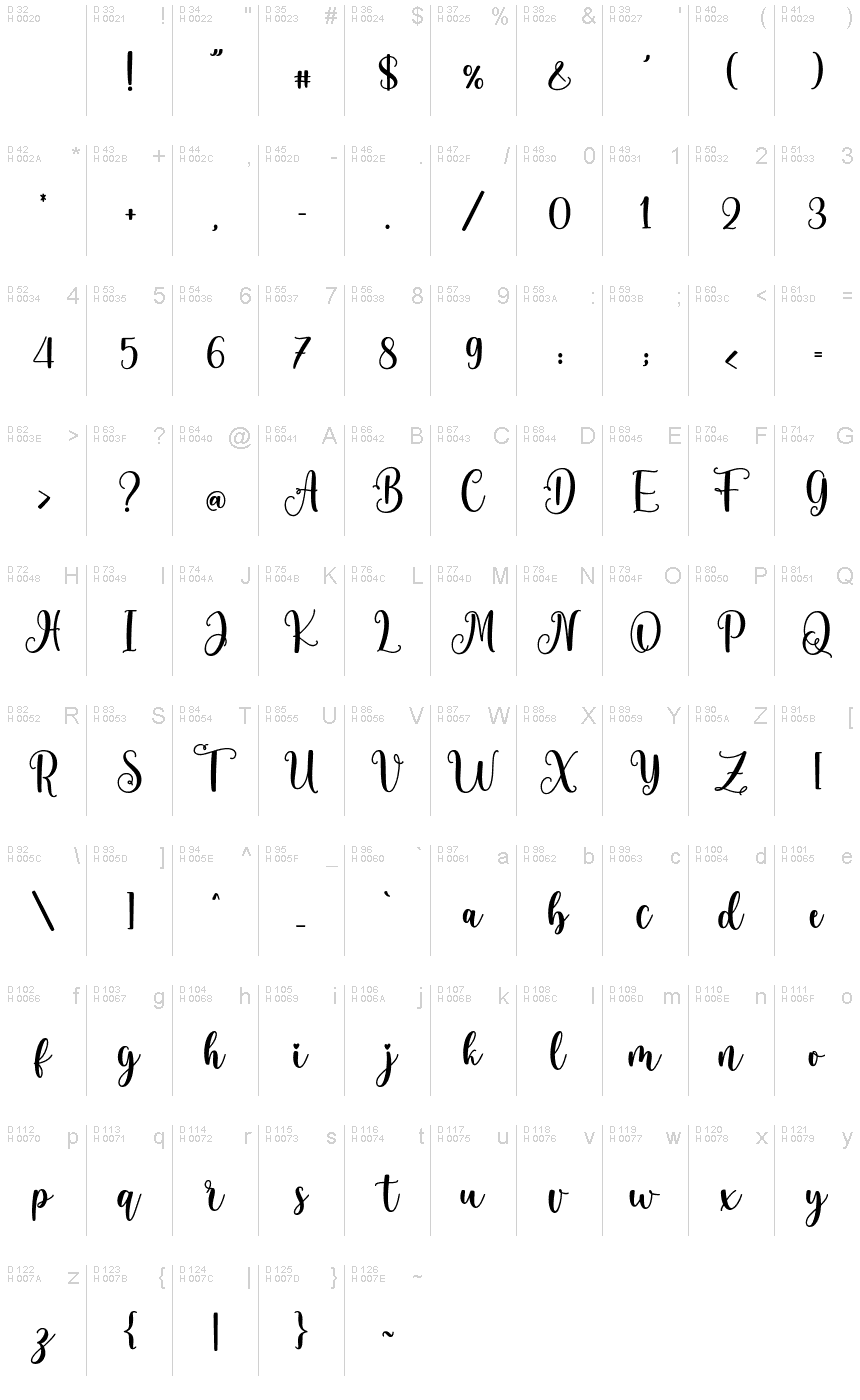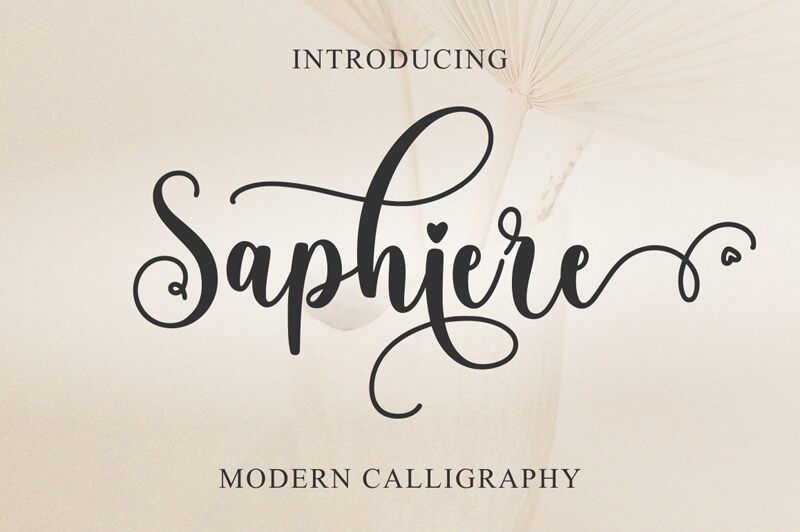
Saphiere, the latest modern calligraphy font by Makashi, is a perfect choice for projects that require elegance and sophistication. Its flowing strokes and intricate details transform any text into a work of art, making it ideal for wedding invitations, branding materials, or product packaging. Whether you're looking to create a luxurious feel or simply add some personality to your design, Saphiere's unique style is sure to impress. With its graceful curves and delicate lines, this font will elevate your next project to new heights of beauty and refinement. Try it out today and see the difference that Saphiere can make!